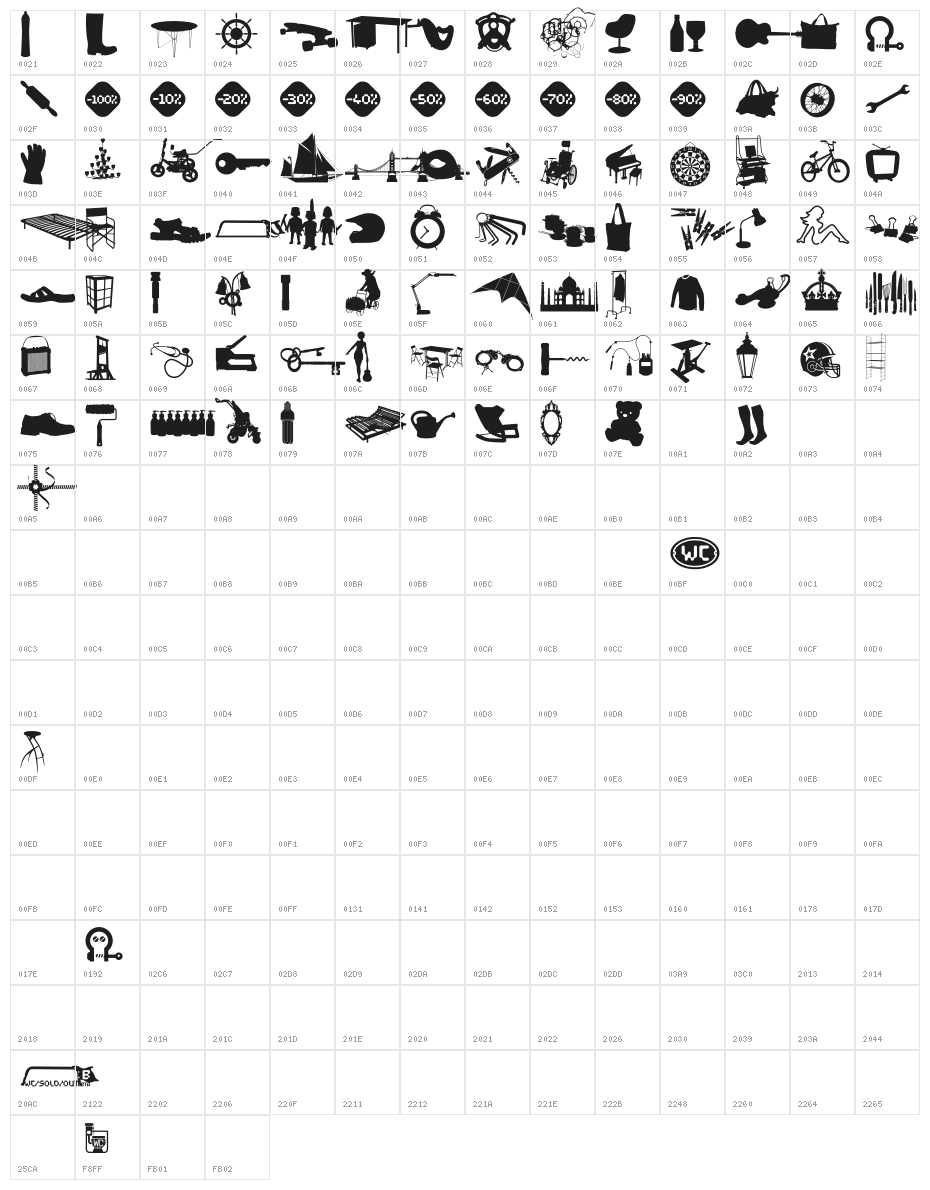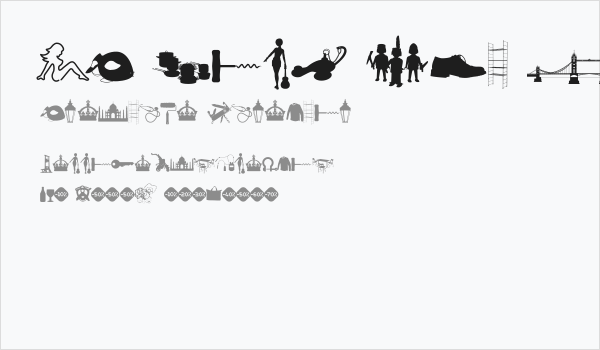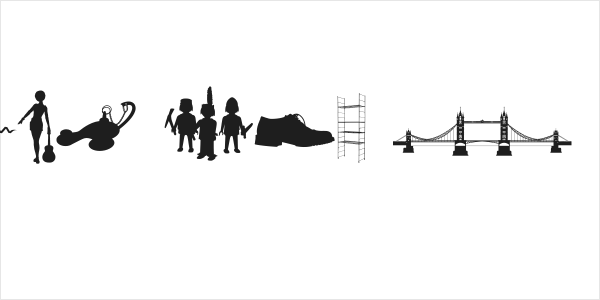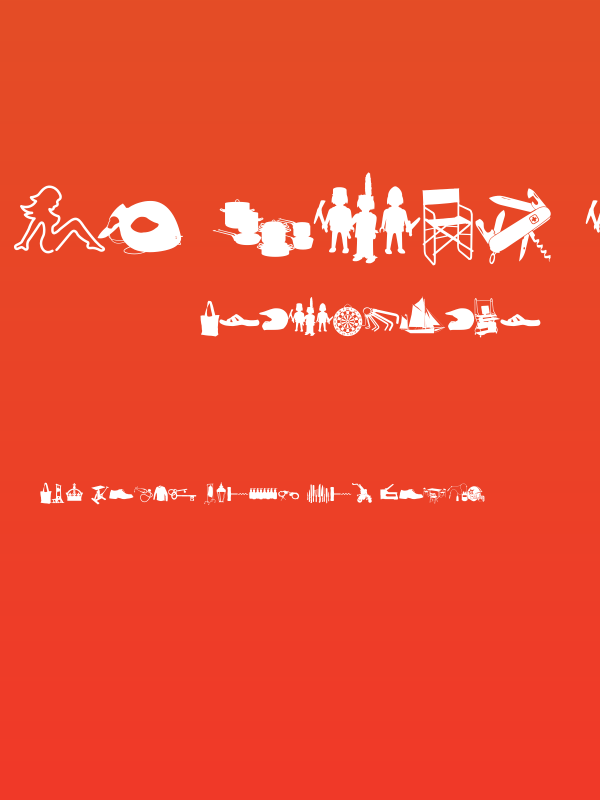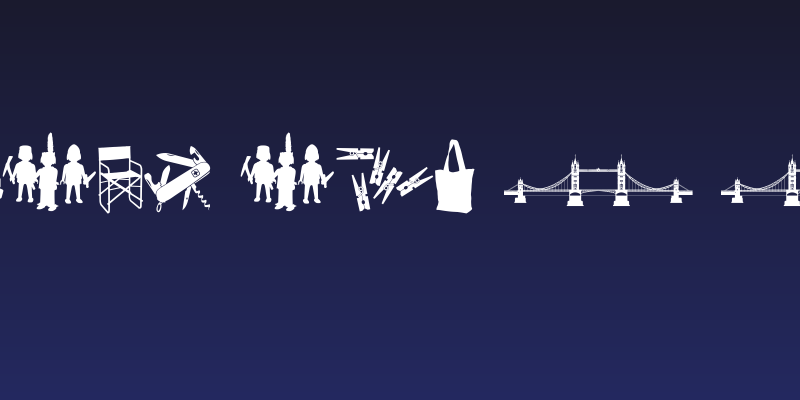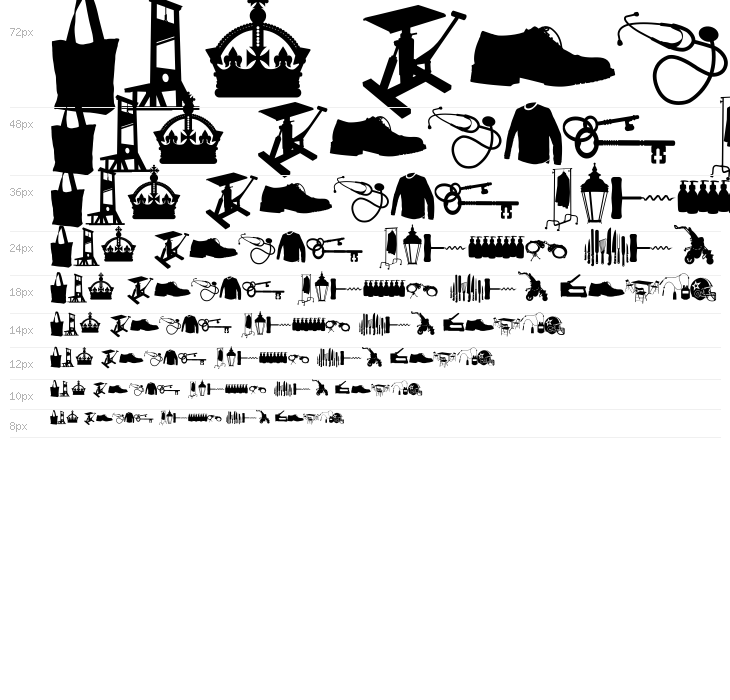
WC Sold Out B Bta Font
WC Sold Out B Bta Description
A decorative dingbat font featuring a wide variety of solid black pictograms, including objects, furniture, landmarks, sale percentage tags, and miscellaneous items. Each character is represented by a unique silhouette illustration rather than traditional alphanumeric glyphs.
| Use Case | Icons, visual accents, sale signage, illustrative elements. |
| Proposed Projects | Retail signage, event flyers, infographics, educational materials, visual communication aids. |